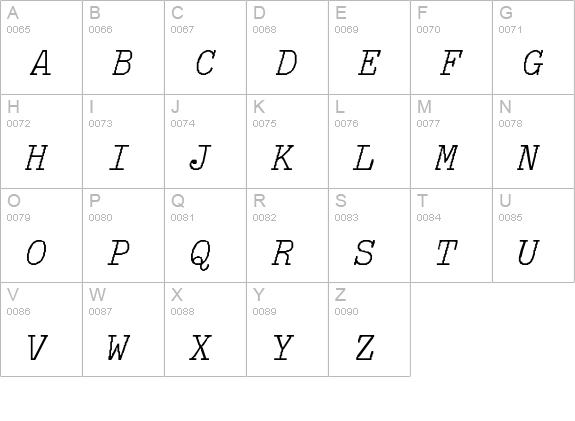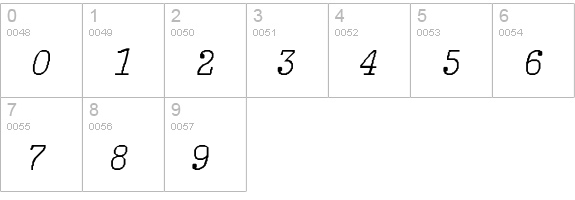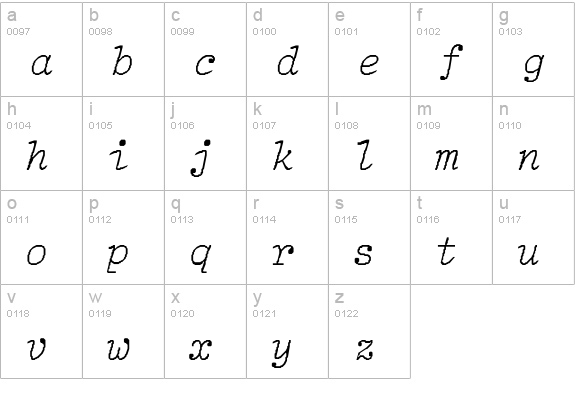
LightItalic-Light-Italic is a refined, elegant, italic variant in the LightItalic typeface family \xE2\x80\x94 well suited to elegant body text, refined sub-headings, and luxury branding.
LightItalic-Light-Italic font is a delicate and elegant typeface that exudes a sense of sophistication and grace. With its light weight and italic style, this font is perfect for adding a touch of refinement to any design project. The subtle slant of the characters creates a sense of movement and flow, making it ideal for use in headings, quotes, and other display text. Best of all, LightItalic-Light-Italic font is completely free to download at FontsMarket.com. Whether you're working on a personal project or a professional design, this font is a versatile choice that will elevate your work with its timeless charm and understated beauty. Download it now and add a touch of elegance to your designs!